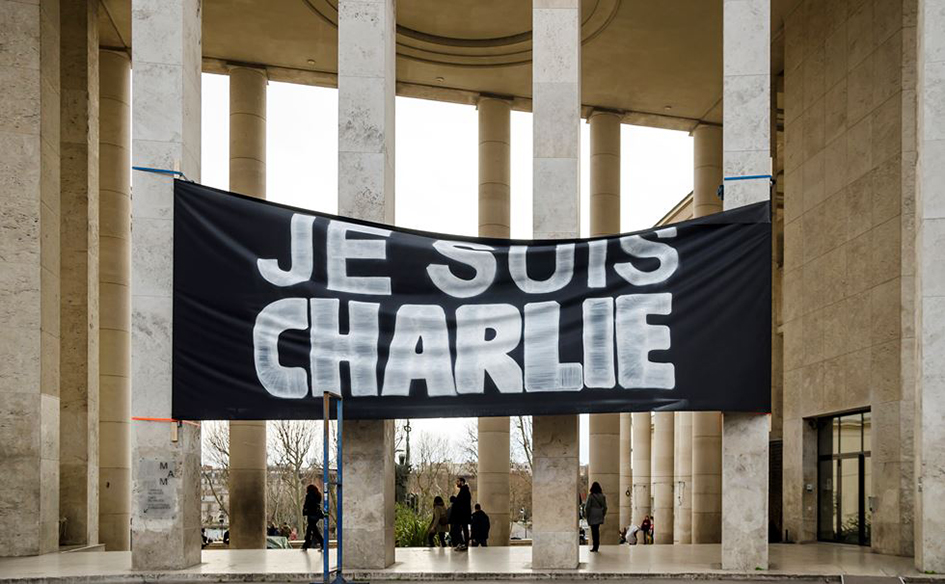
Design Museum explores the typo revolting art in the noughties
Margaret Cubbage, the curator of Design Museum’s upcoming exhibition Hope to Nope: Graphics and Politics 2008–2018 to TheCultureTrip notes “I think people are more politically aware and this in part is a result of social media. Not only do the masses have a platform in which to voice their opinion, but politicians use the same platform in which to communicate current affairs” . “You can choose whether or not to tune into this or engage or participate in this dialogue, but largely it is more prevalent within our daily interactions and communications”.
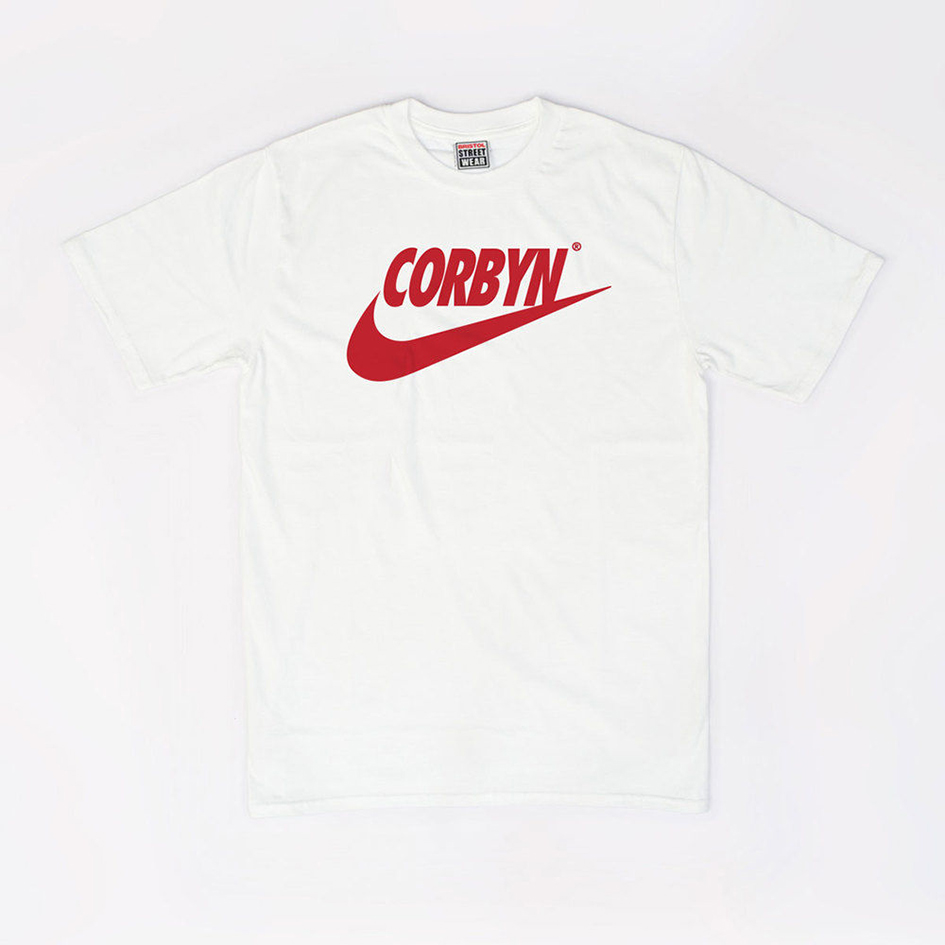
Per Design Museum “this has been a politically volatile decade. The global financial crash of 2008 and its aftermath have shaken people’s confidence in the prevailing order. The political landscape is increasingly polarised between left- and right-wing agendas, with the reaction against the establishment culminating in the surprise results of the Brexit referendum and the 2016 US election. Other areas of the world have witnessed similar upheavals, with events such as the Arab Spring and the refugee crisis having far-reaching political implications.
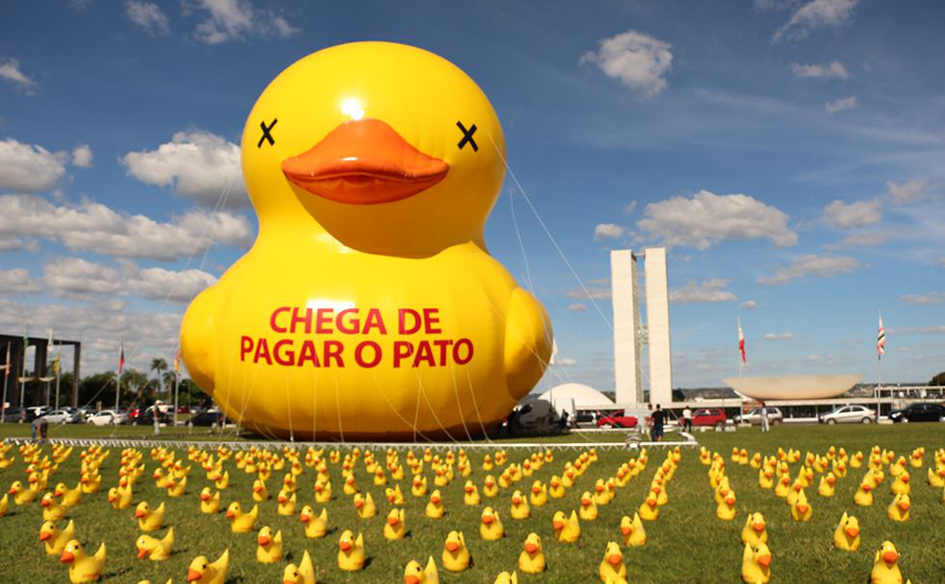
Fuelling these events has been an extraordinary proliferation of graphic messages, from political posters and protest placards to internet memes. People are more politically engaged than they have been for years, and the rise of social media has meant that they can disseminate political iconography as never before. Type and image are being used by the marginalised and powerful alike to shape political messages, both reinforcing and undermining authority across the globe.
Hope to Nope will explore the diverse methods that have been used to construct and communicate political messages over the past ten years. As traditional media rubs shoulders with the hash-tag and the meme, never has graphic design been more critical in giving everyone a political voice.
A combination of the rise of social media and the endurance of one of the most politically volatile decades in history has led to huge public engagement with politics since the financial crash of 2008.
The Design Museum’s forthcoming exhibition, Hope to Nope: Graphics and Politics 2008–2018, explores graphic design’s critical role in providing a political voice for the masses over the last decade, whether it’s grassroots Brexit protest placards to hashtags and memes surrounding Donald Trump’s presidency.
“The ‘Newborn’ typographic monument is one of my personal favourites. It is an example of statecraft, and the birth of a fledgling nation, celebrating Kosovo’s independence from Serbia. A bold and clear statement to the world, that celebrates the independence of a country and is a monument that people can gather around. I also like the fact its appearance changes each year to mark the anniversary” says Cubbage. Discover your own revolting treasures here.